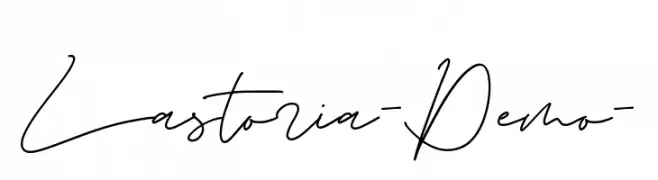
A playful, casual handwritten font with irregular strokes and an organic flow.
A lively and energetic script font with fluid, connected letterforms.
A sophisticated and fluid script typeface with elegant, flowing lines.
A playful, hand-drawn font with elongated, thin strokes and a whimsical style.
A playful, hand-drawn font with a whimsical and casual style.
A dynamic handwritten font with fluid, slightly irregular strokes and a playful vibe.
A cursive, handwritten font with elegant and fluid strokes.